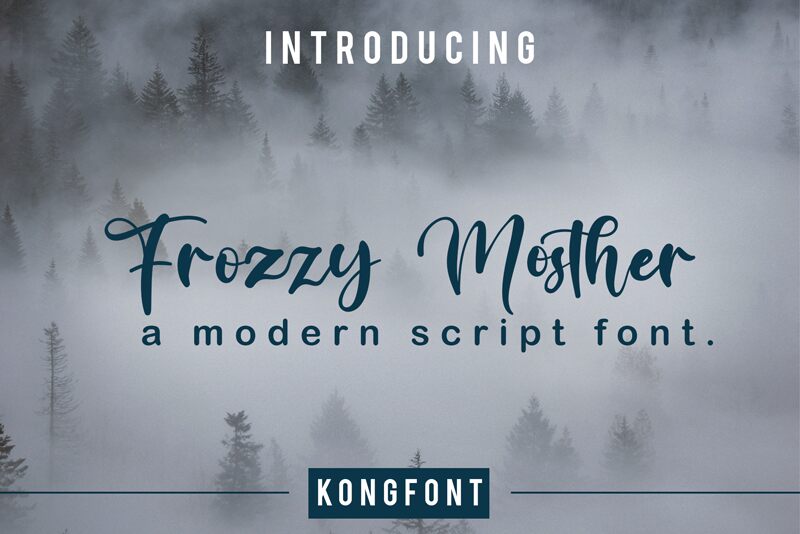
Frozzy Mosther font family by Kong Font offers an expressive and modern calligraphy style that adds an elegant touch to any project. This free font family blends fluid motion with contemporary design sensibilities, making it a versatile option for today’s creative needs. With its artistic flair, the font captures attention and embodies sophisticated charm.
Perfect for branding, invitations, posters, logos, packaging, social media graphics, advertisements, websites, greeting cards, and event signage, Frozzy Mosther stands out wherever it’s used. Its harmonious blend of classic and modern elements can enhance a wide variety of design applications.